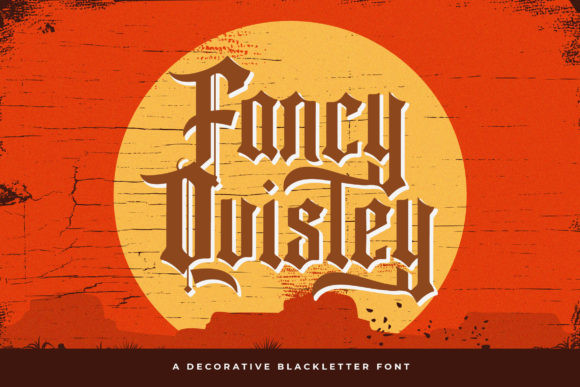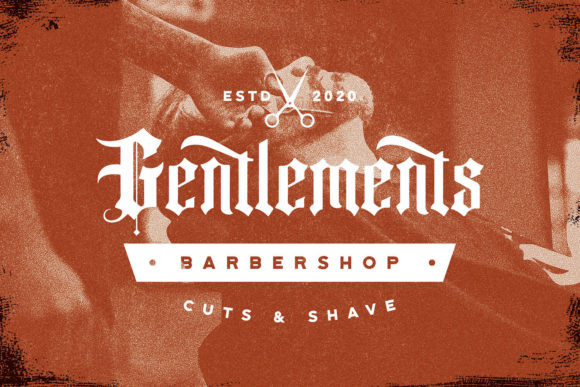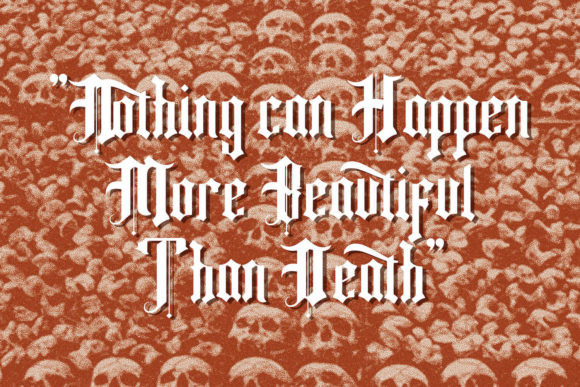
Fancy Quisley Font
Fancy Quisley is a blackletter font inspired by vintage signs and retro style labels. This makes it ideal and the perfect choice for creating unique designs like posters, logos, labels, packaging and much more!